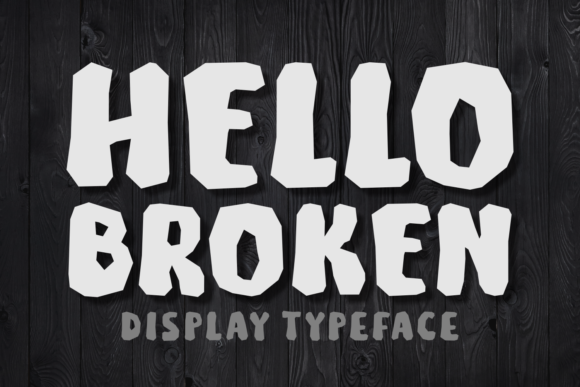
Introduce a font that exudes charm and uniqueness, Hello Broken - a display font created by Creative Fabrica Fonts that will add an artistic touch to your creative endeavors. Let your imagination run wild as you explore the possibilities with this remarkable creation.
Hello Broken's full-figured, chunky letters command attention, exuding a sense of playfulness and fun. It's as if each character has a personality of its own, ready to engage and captivate your audience. Whether it's a t-shirt design, a captivating quote, or an eye-catching poster, Hello Broken will transform your words into captivating visuals.
Step into the world of modern typography with Hello Broken, a font that blends boldness and elegance effortlessly. It's not just a font; it's an art form, a masterpiece that will elevate your designs to new heights. Experience the joy of creating designs that stand out, designs that leave a lasting impression.
Envision your designs adorned with Hello Broken's distinct characters, each letter carrying the weight of your message. Create posters that demand attention, covers that intrigue, and 3D prints that come alive with texture and depth. Indulge in the artistic freedom of designing food and drink menus that tantalize taste buds and tattoo designs that tell stories on skin.
With Hello Broken, the possibilities are endless. Embrace the creative spirit within you and let your imagination soar. Unlock a world of design opportunities and craft visuals that resonate with your audience, leaving them captivated and inspired.